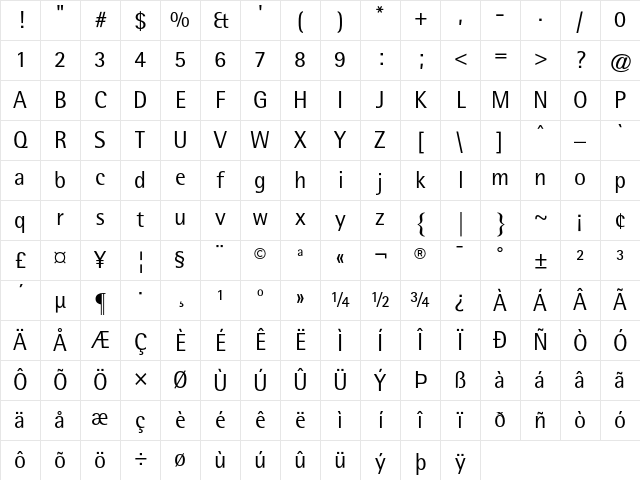
ATRotisSemisans Regular
ATRotisSemisans Family
Complete ATRotisSemisans Regular glyph index. Displaying only characters natively supported by ATRotisSemisans Regular font.
Design Context for ATRotisSemisans
ATRotisSemisans is a composed and adaptable typeface that performs quietly and consistently across a wide range of design contexts.